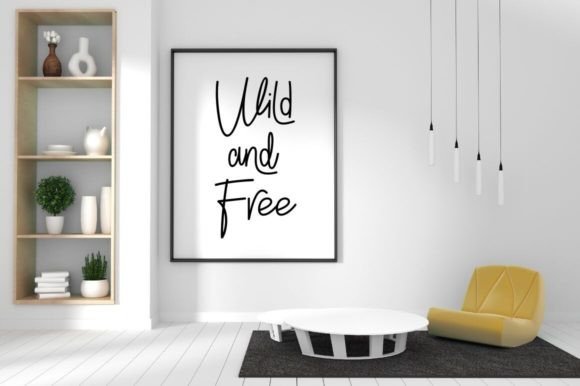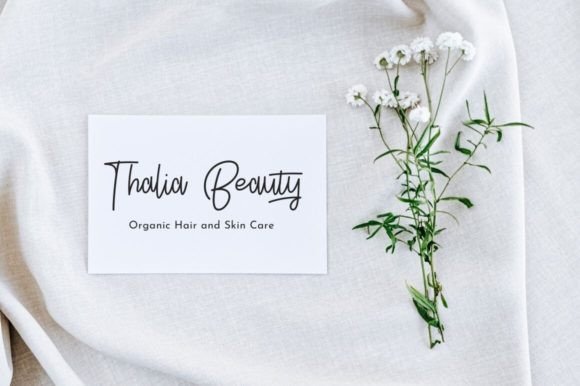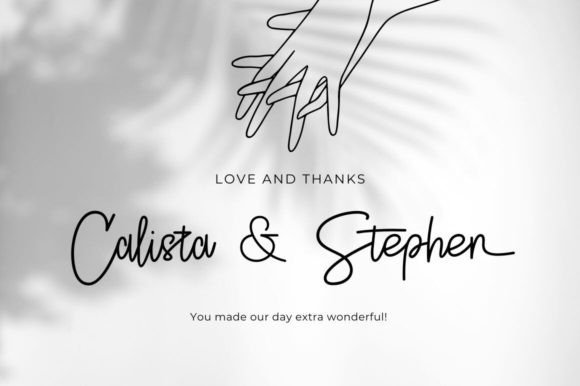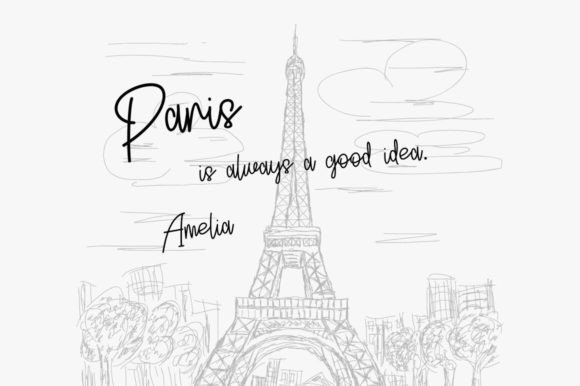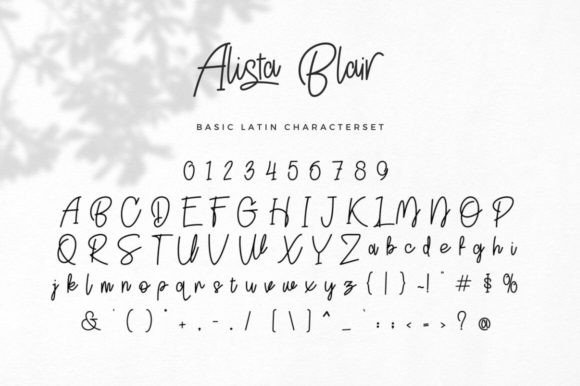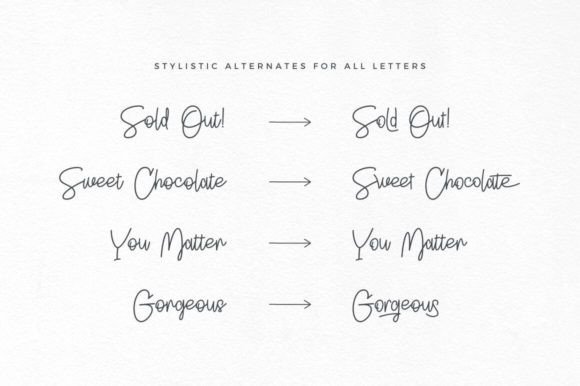
Introducing Alista Blair Font: Elevate Your Designs with a Unique Handwritten Style
In the world of typography, a well-crafted font can make all the difference in elevating your design to the next level. For designers and crafters looking for a distinctive and elegant handwritten font, Alista Blair Font is an excellent choice. This monoline-style font boasts unique curves and an effortless signature style, perfect for a wide range of applications.
What Makes Alista Blair Font Stand Out?
Alista Blair Font is a one-of-a-kind handwritten font that exudes sophistication and elegance. Its monoline-style vibe gives it a modern and sleek look, making it perfect for designs that require a touch of refinement. The font’s unique curves and fluid lines create a beautiful, flowing script that is sure to capture attention.
Alista Blair Font is incredibly versatile and can be used for a wide range of design applications, including:
• Branding: Create a lasting impression with a unique and memorable brand identity.
• Quotes: Add a touch of elegance to inspirational quotes and sayings.
• Logos: Design a professional and sophisticated logo that stands out.
• Signatures: Add a personal touch to digital signatures or create a custom signature for your brand.
• Badges: Design eye-catching badges for events, products, or services.
• Labels: Create beautiful labels for products, gifts, or packaging.
• Invitations: Design elegant and sophisticated invitations for special occasions.
• Packaging designs: Elevate your packaging designs with a touch of luxury and refinement.
• Blog headlines: Add a touch of elegance to your blog headlines and make them stand out.
Why Choose Alista Blair Font?
With so many fonts available, why choose Alista Blair Font? Here are just a few reasons:
• Unique and distinctive: Alista Blair Font is a one-of-a-kind font that will set your designs apart.
• Elegant and sophisticated: The font’s monoline-style vibe and fluid lines create a beautiful, elegant script.
• Versatile: Alista Blair Font can be used for a wide range of design applications.
• Easy to read: The font is clear and easy to read, making it perfect for body text and headlines.
Tips for Using Alista Blair Font
To get the most out of Alista Blair Font, here are a few tips:
• Use it sparingly: Alista Blair Font is a statement font, so use it sparingly to make a lasting impression.
• Pair it with a sans-serif font: Pair Alista Blair Font with a sans-serif font for a beautiful contrast.
• Experiment with colors: Try out different colors and textures to add depth and interest to your designs.
Alista Blair Font is a unique and elegant handwritten font that is perfect for designers and crafters looking to elevate their designs. With its monoline-style vibe, fluid lines, and effortless signature style, it’s perfect for a wide range of applications. Whether you’re looking to create a lasting impression with a brand identity, add a touch of elegance to quotes and sayings, or design beautiful packaging, Alista Blair Font is an excellent choice.